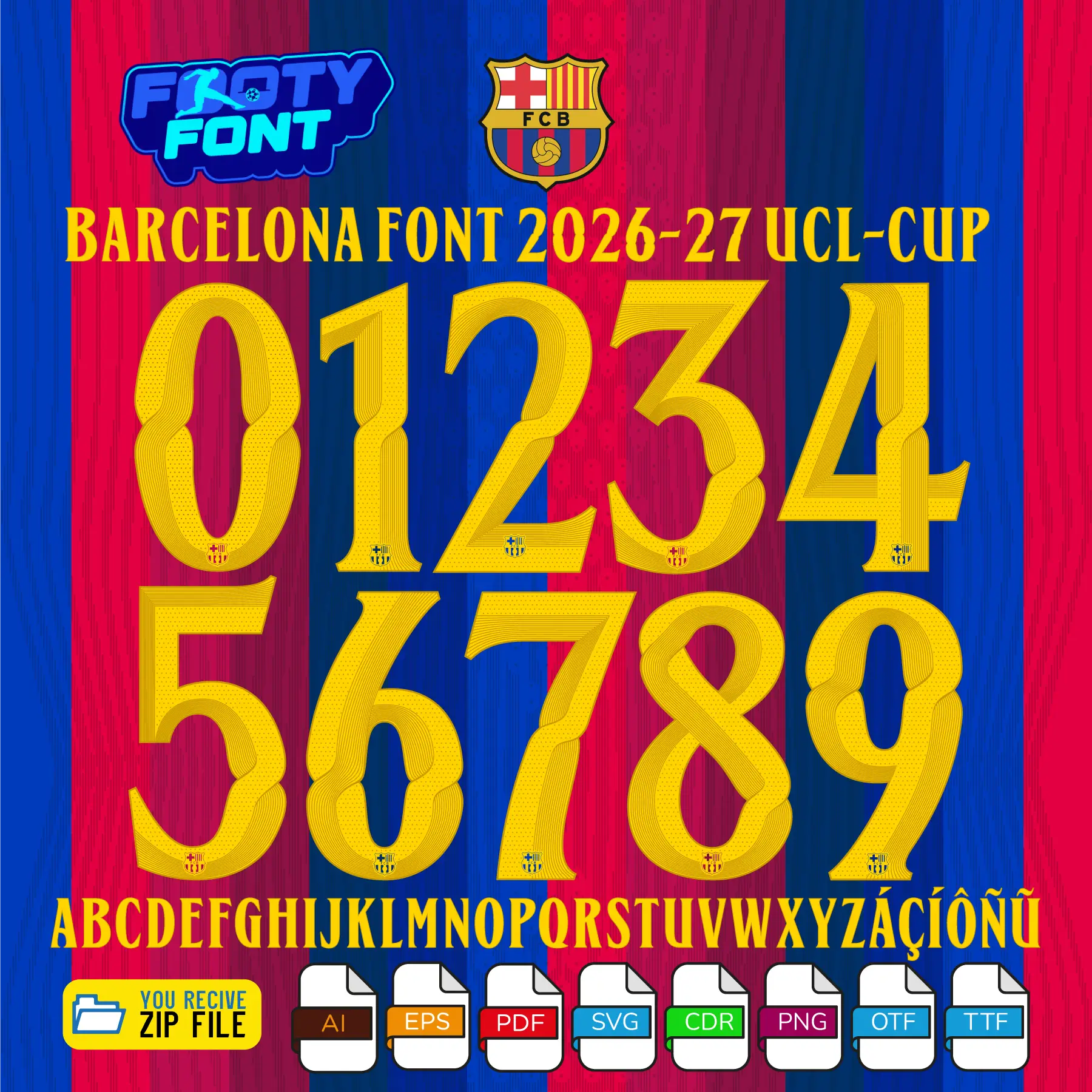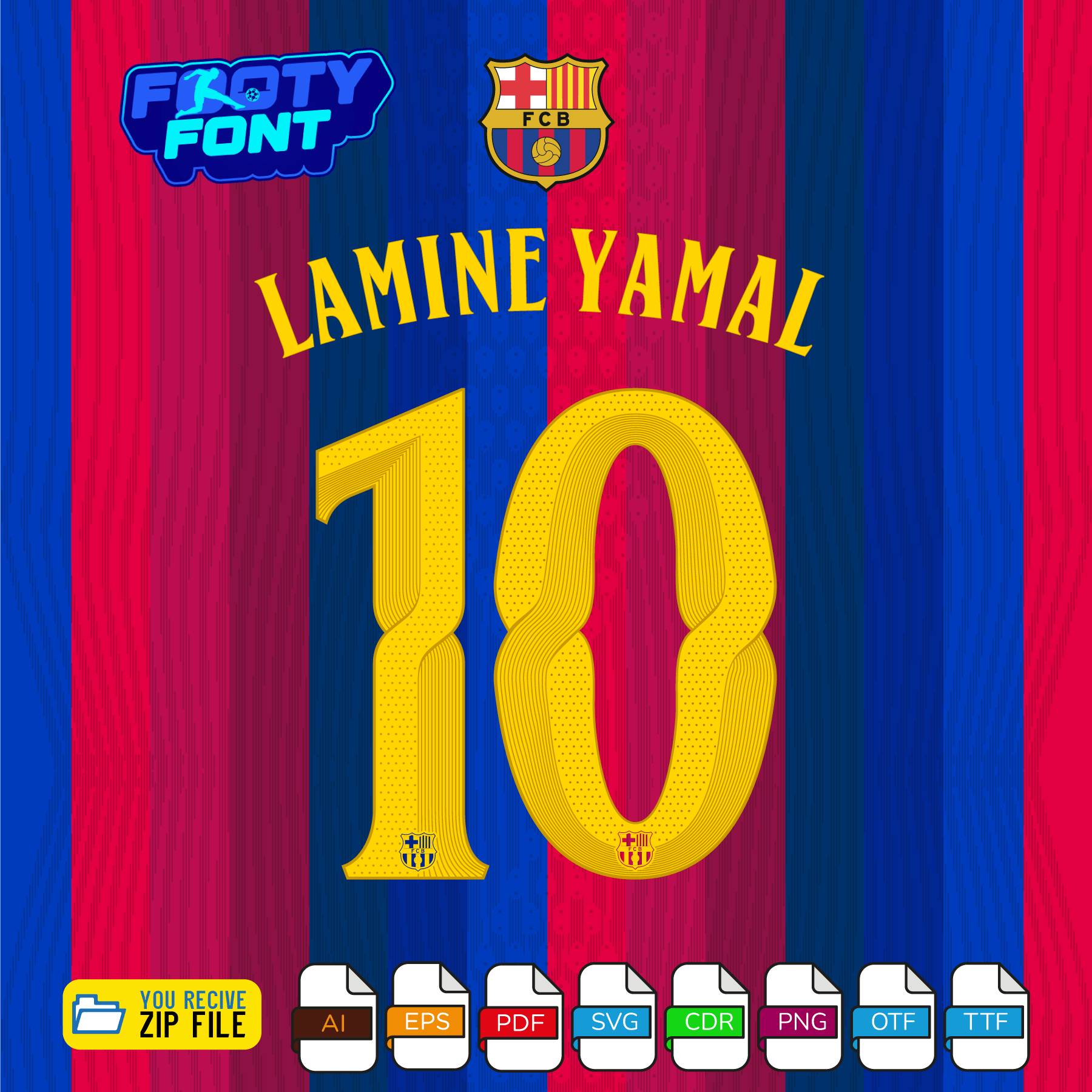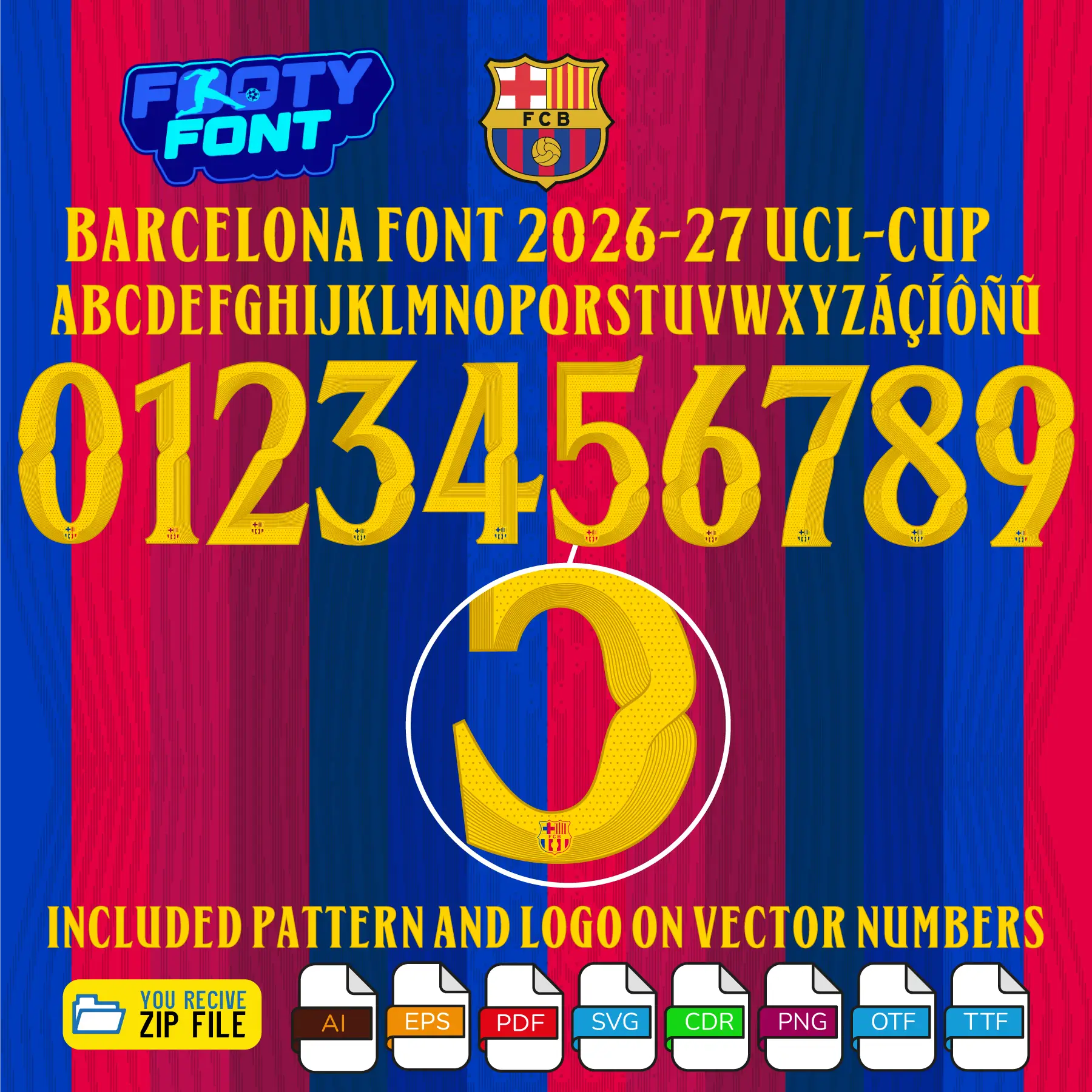
FC Barcelona Font 2026-27
Bring the magic of the Camp Nou to your designs with this font football, inspired by the FC Barcelona 2026-27 cup kit. This high-quality typeface is meticulously designed to replicate the elegant, custom lettering worn by La Blaugrana during their UEFA Champions League and Copa del Rey campaigns. It features striking, golden-yellow numbers with a highly detailed internal stippled and lined texture that perfectly complements their iconic blue and garnet striped home jerseys.
This font captures the elite style worn by global superstars and La Masia prodigies like Lamine Yamal 10, Pedri, and Gavi. As FC Barcelona competes for European and domestic cup glory, this cup font is an absolute must-have for fans creating custom jersey designs, digital art, streetwear, or matchday posters.
A complete look at the FC Barcelona Font 2026-27, featuring the full number set and a real-world application showcasing custom typography.
Complete A-Z alphabet and 0-9 number vector character set for the FC Barcelona Font 2026-27, showing the included file formats against a classic blue and garnet striped background.
FC Barcelona Font 2026-27 (UCL & Copa)